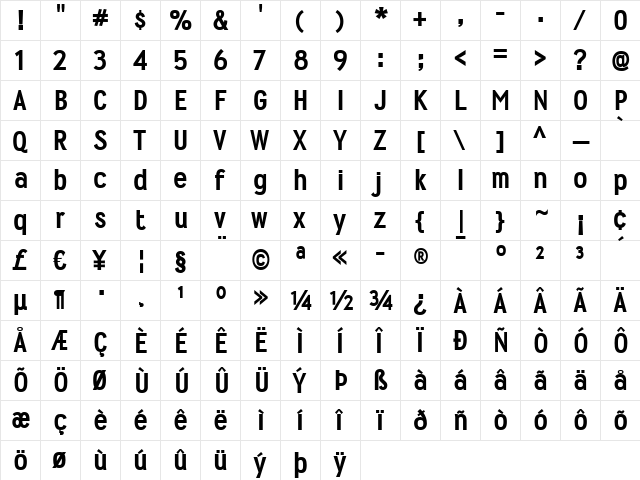
Wyvern Hvy Regular
| Foundry | Typodermic |
Design Context for Wyvern Hvy Typeface
Wyvern Hvy takes a measured approach to typography — its balanced proportions and neutral character make it a reliable workhorse for both digital and print work.